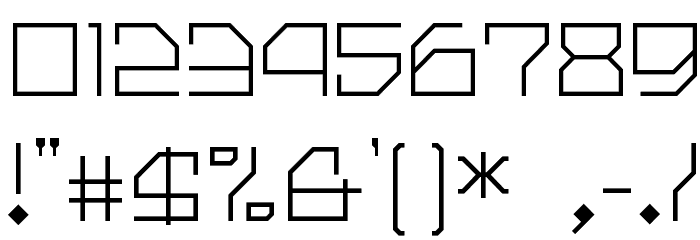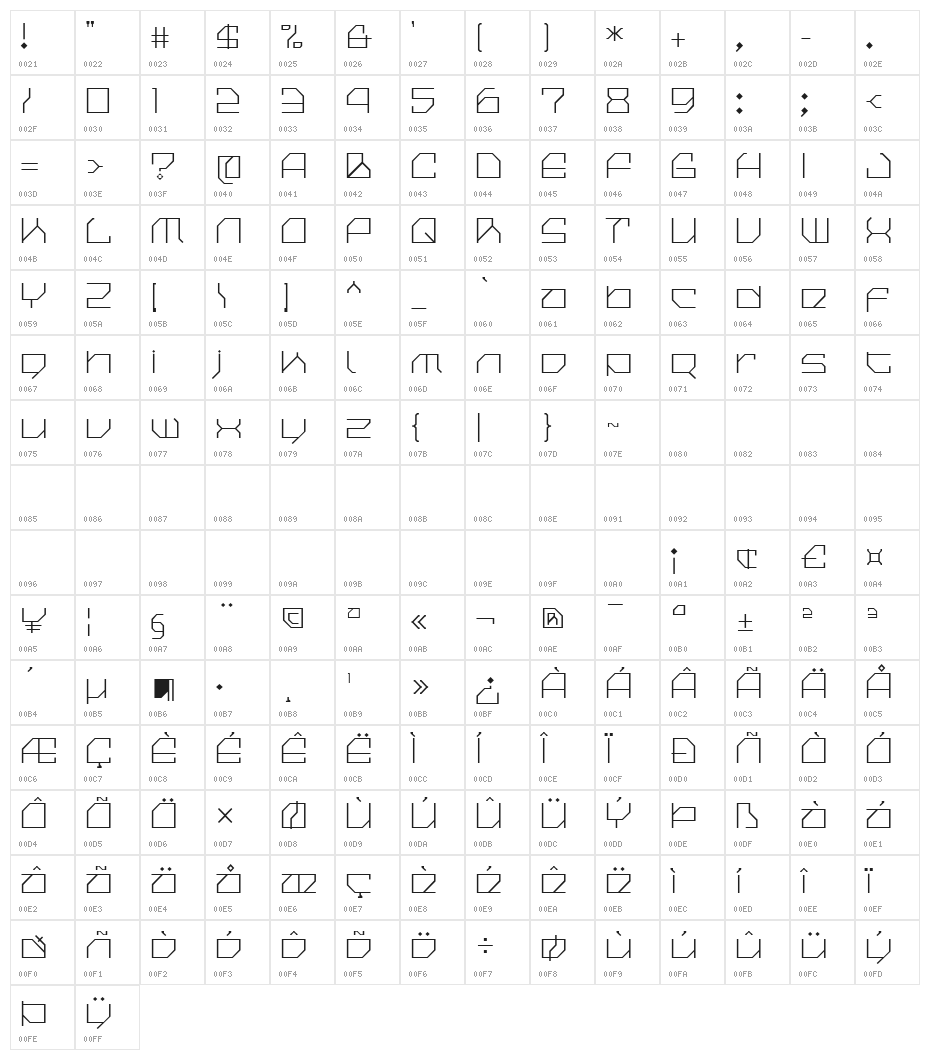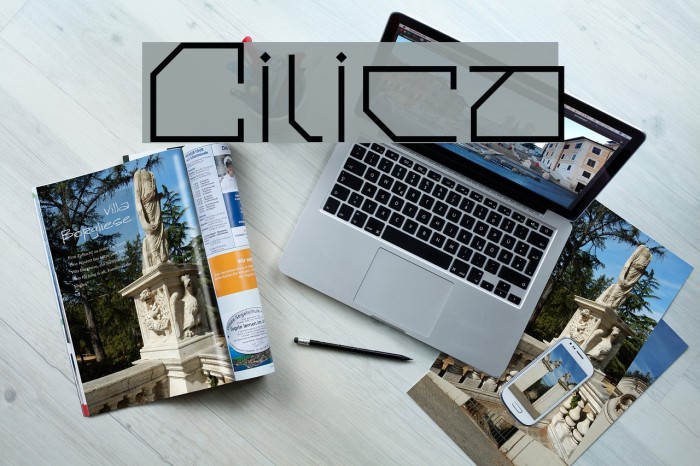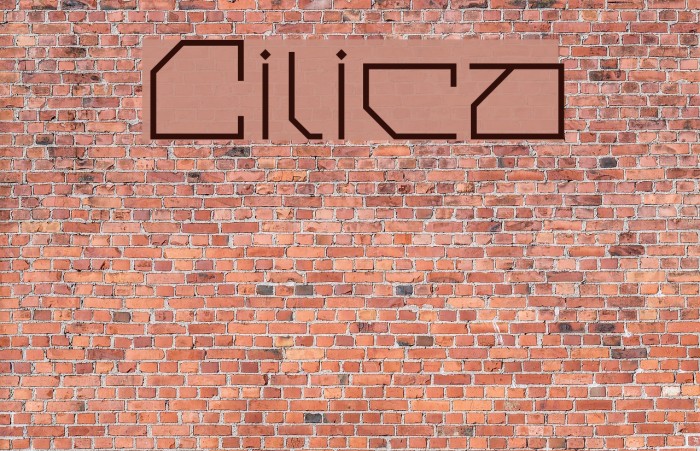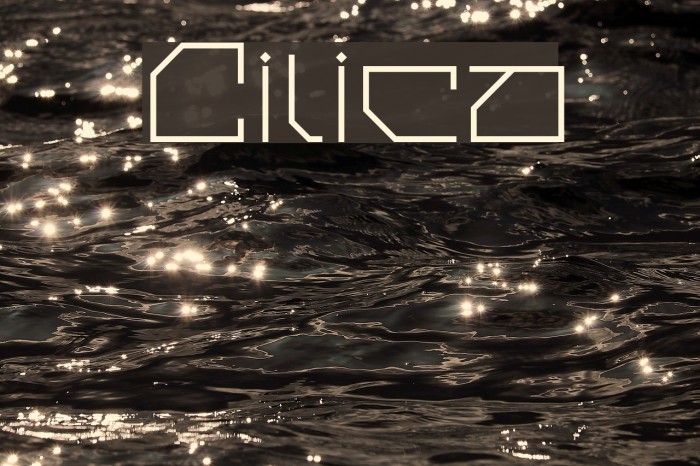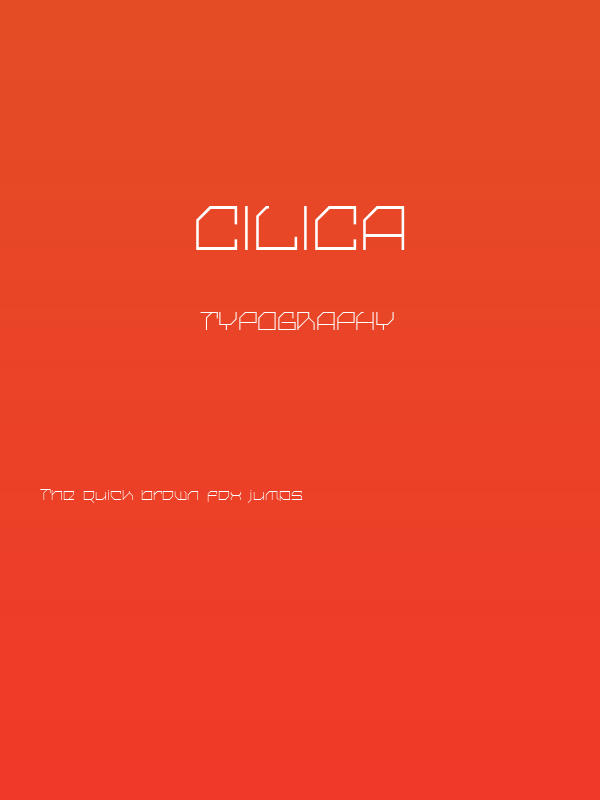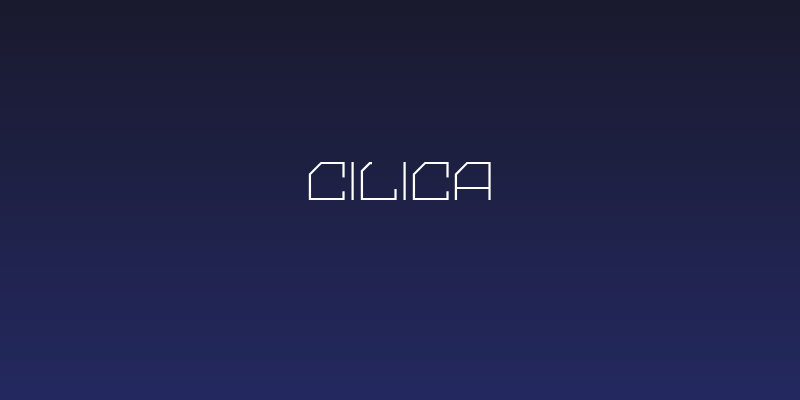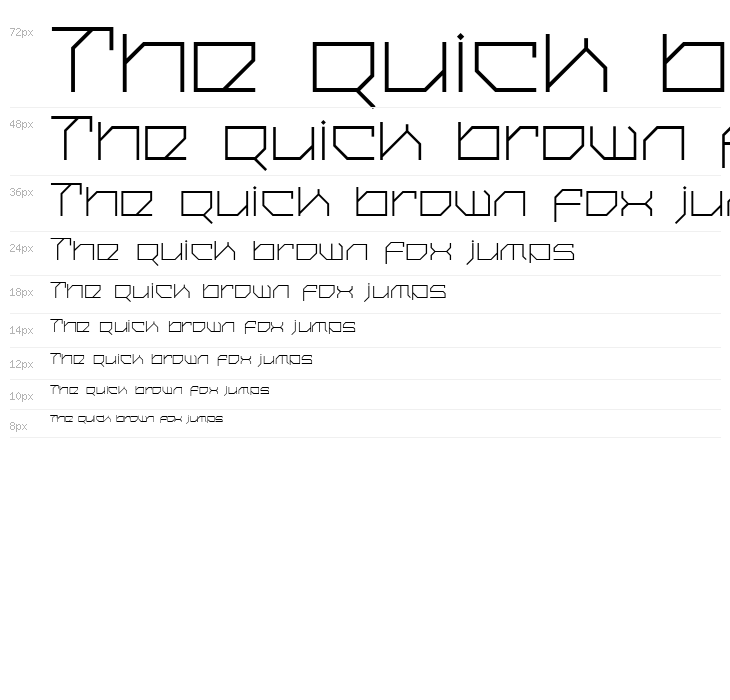
Cilica Font
Cilica Description
This font features a geometric and angular design, characterized by its sharp edges and linear forms. Each character is constructed with precision, creating a futuristic and technical appearance. The uppercase and lowercase letters maintain a consistent style, emphasizing straight lines and right angles. Numbers and special characters follow the same design principles, ensuring uniformity across all elements. The font's unique structure makes it stand out, offering a modern and innovative look that is both striking and memorable.
| Use Case | Logos, Headlines, Digital interfaces |
| Proposed Projects | Ideal for technology branding, sci-fi themed projects, modern logos, and digital interfaces. |